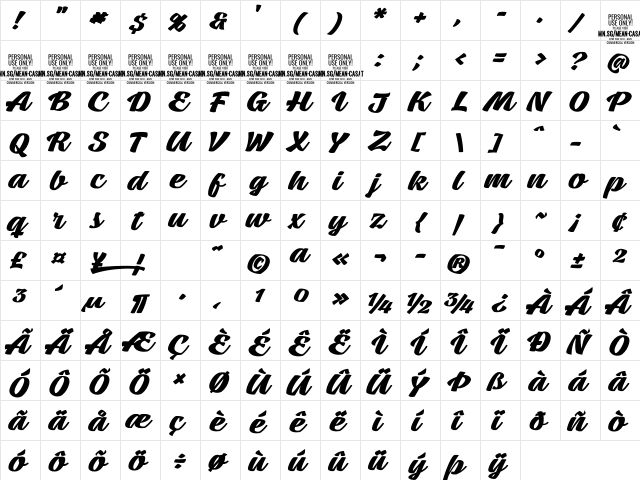
Mean Casat Bold PERSONAL USE Regular
| Designer | Mans Greback |
Design Context for Mean Casat Bold PERSONAL USE Typeface
Mean Casat Bold PERSONAL USE is a composed and adaptable typeface that performs quietly and consistently across a wide range of design contexts. Its bold stroke weight gives it real presence on the page.